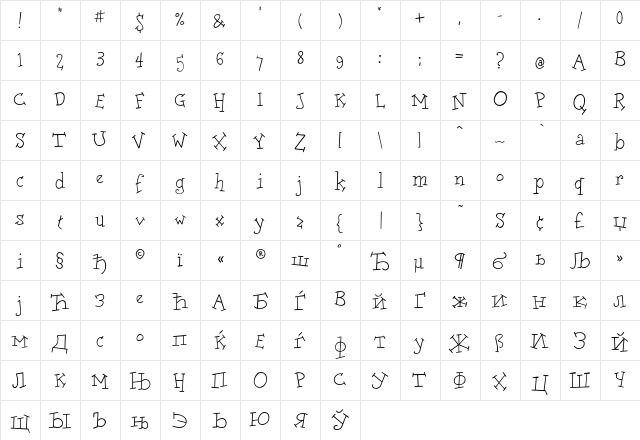
DoloresCyr Light
Design Context for DoloresCyr Typeface
DoloresCyr is a composed and adaptable typeface that performs quietly and consistently across a wide range of design contexts. Its slender proportions lend an understated elegance to any composition.